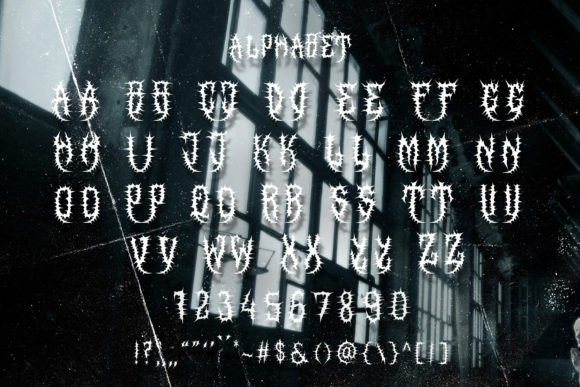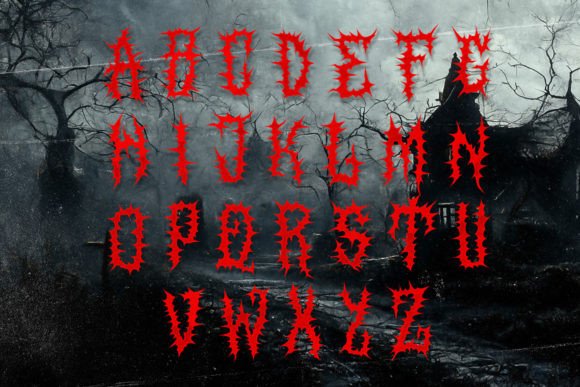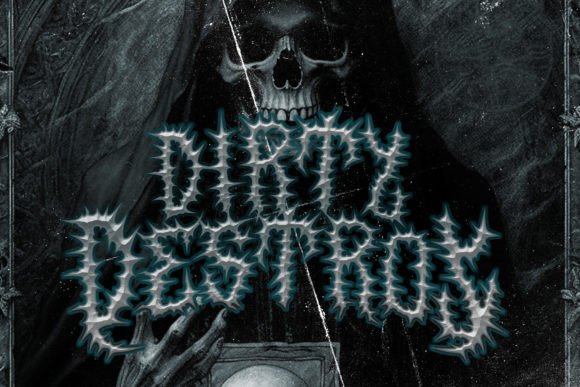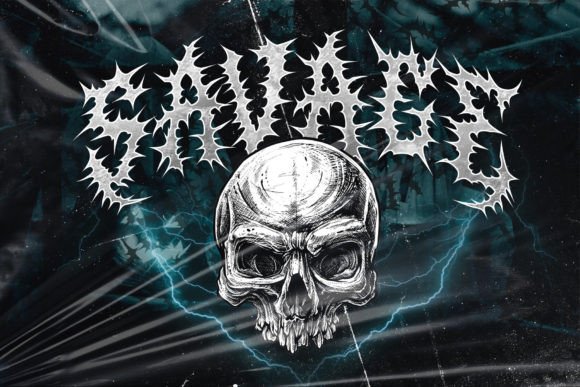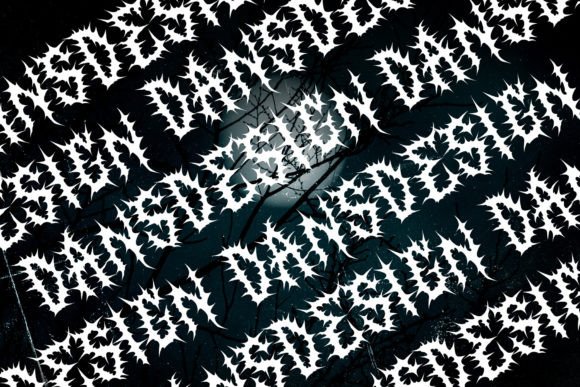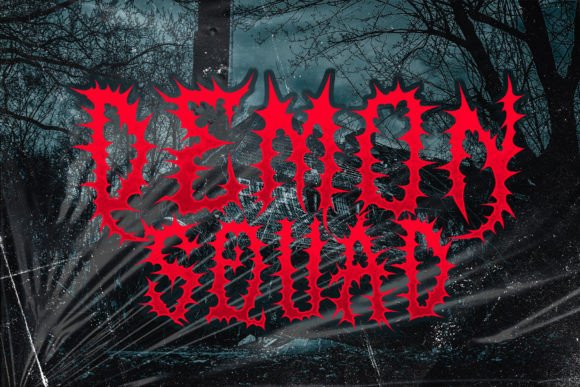
Unleash the Horror: Discover the Anarcos Font
Are you a designer, craftsperson, or music enthusiast looking for a unique and captivating font to elevate your creative projects? Look no further than the Anarcos Font, a distinct and highly detailed Horror Metal Font that’s sure to make a statement. In this article, we’ll dive into the features, uses, and benefits of the Anarcos Font, and explore how it can add a touch of edginess to your designs.
What is Anarcos Font?
Anarcos Font is a one-of-a-kind, Horror Metal Font designed to evoke the dark, bold, and intense spirit of the metal music scene. With its intricate details and rugged texture, this font is perfect for creating eye-catching designs that demand attention. Whether you’re working on a music poster, tattoo business branding, or vintage-inspired design, Anarcos Font is the ideal choice for adding a touch of horror and metal-inspired flair.
Key Features of Anarcos Font
- Highly Detailed Design: Anarcos Font boasts an intricate design with precise lines, curves, and shapes, making it a standout among other fonts.
- Horror Metal Inspiration: Inspired by the dark and intense world of horror and metal music, this font is perfect for creating bold and edgy designs.
- Versatile: Anarcos Font can be used for a wide range of projects, from music posters and logos to tattoo business branding and vintage designs.
- Retro-Urban Feel: The font’s distressed texture and rugged edges give it a retro-urban feel that’s perfect for designs that require a gritty, industrial look.
Uses for Anarcos Font
Anarcos Font is an incredibly versatile font that can be used for a wide range of creative projects, including:
- Music Posters: Create eye-catching posters for concerts, festivals, and music events with Anarcos Font.
- Tattoo Business Branding: Use Anarcos Font to create bold and edgy logos, business cards, and marketing materials for tattoo artists and studios.
- Vintage Designs: Add a touch of nostalgia to your designs with Anarcos Font’s distressed texture and retro-urban feel.
- Logos and Branding: Create unique and memorable logos for businesses, products, and services with Anarcos Font.
- Retro-Urban Designs: Use Anarcos Font to create gritty and industrial-inspired designs for clothing, accessories, and other products.
Benefits of Using Anarcos Font
So why choose Anarcos Font for your design projects? Here are just a few benefits:
- Stand Out from the Crowd: Anarcos Font is a unique and distinctive font that will help your designs stand out from the competition.
- Add Edginess to Your Designs: With its horror metal inspiration and distressed texture, Anarcos Font adds a touch of edginess to any design.
- Perfect for Music and Tattoo Enthusiasts: Anarcos Font is a must-have for music enthusiasts and tattoo artists looking for a font that speaks to their interests.
- Easily Customizable: Anarcos Font can be easily customized to fit your design needs, making it a versatile choice for a wide range of projects.
In conclusion, Anarcos Font is a highly detailed and distinctive Horror Metal Font that’s perfect for designers, craftspersons, and music enthusiasts looking to add a touch of edginess to their creative projects. With its intricate design, versatile uses, and benefits, Anarcos Font is a must-have for anyone looking to create bold and eye-catching designs. So why wait? Download Anarcos Font today and unleash the horror in your designs!